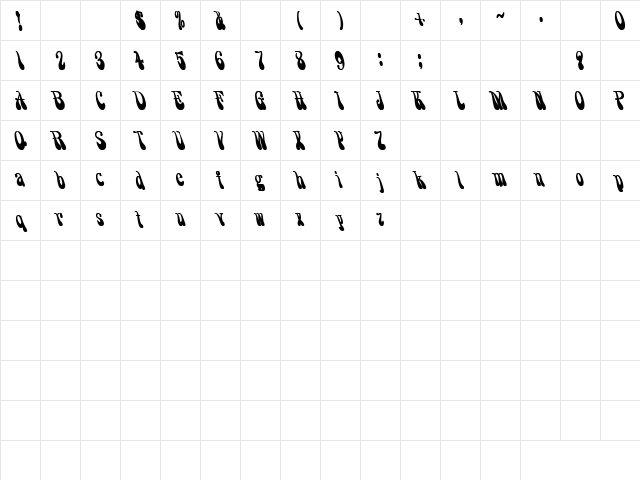
Complete Pigs 5 Bold glyph index. Displaying only characters natively supported by Pigs 5 Bold font.
Pigs 5 is a composed and adaptable typeface that performs quietly and consistently across a wide range of design contexts. Its bold stroke weight gives it real presence on the page.